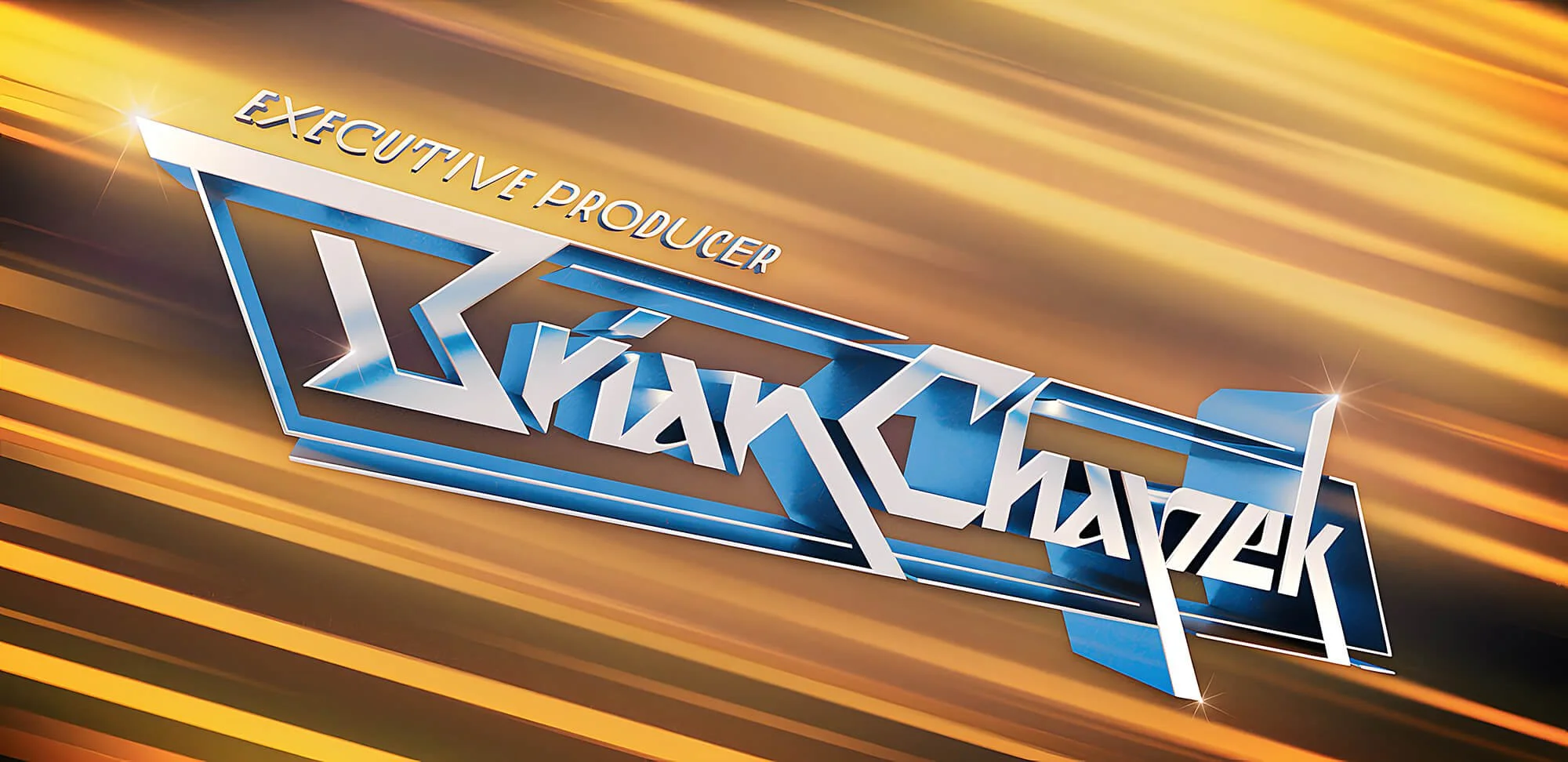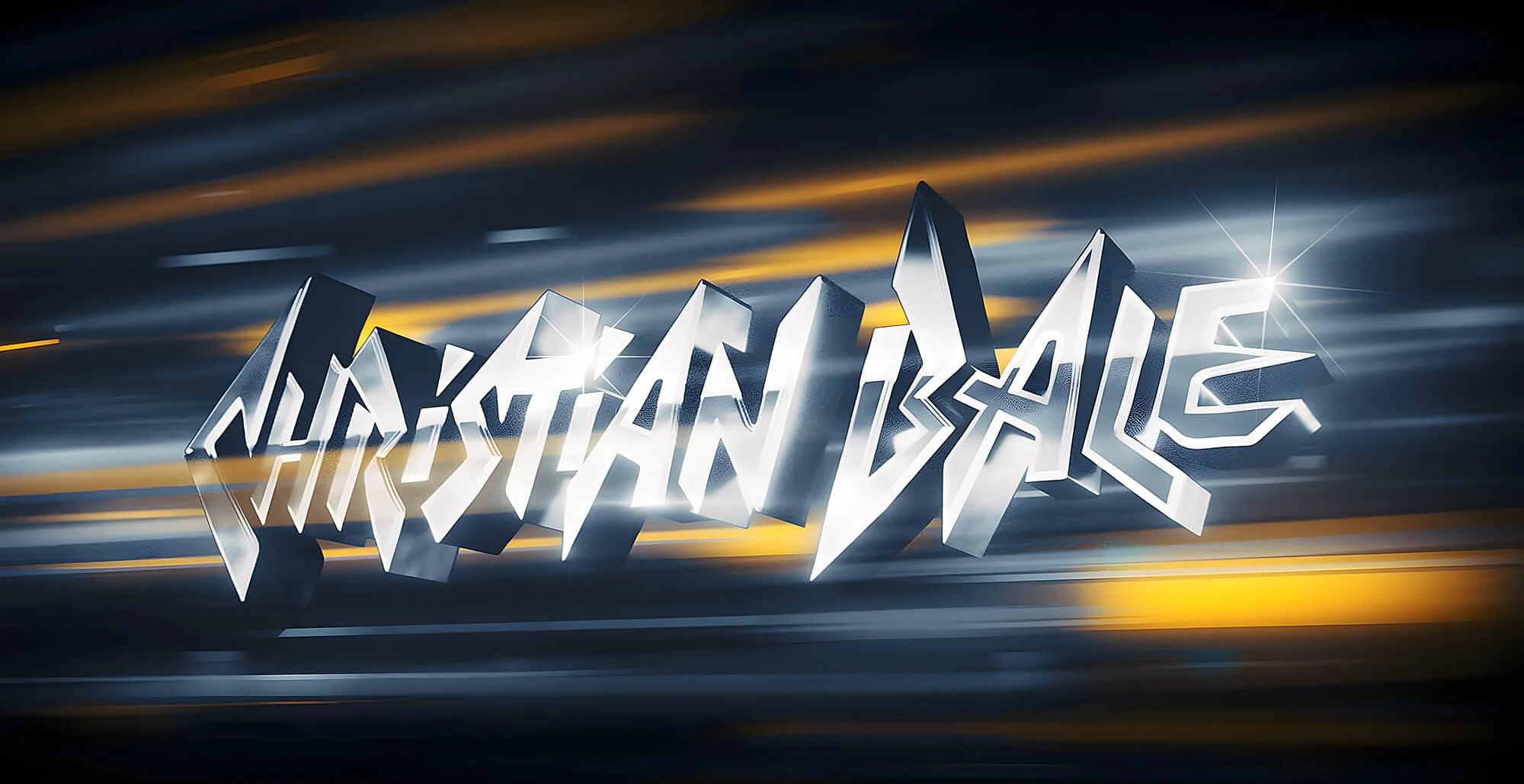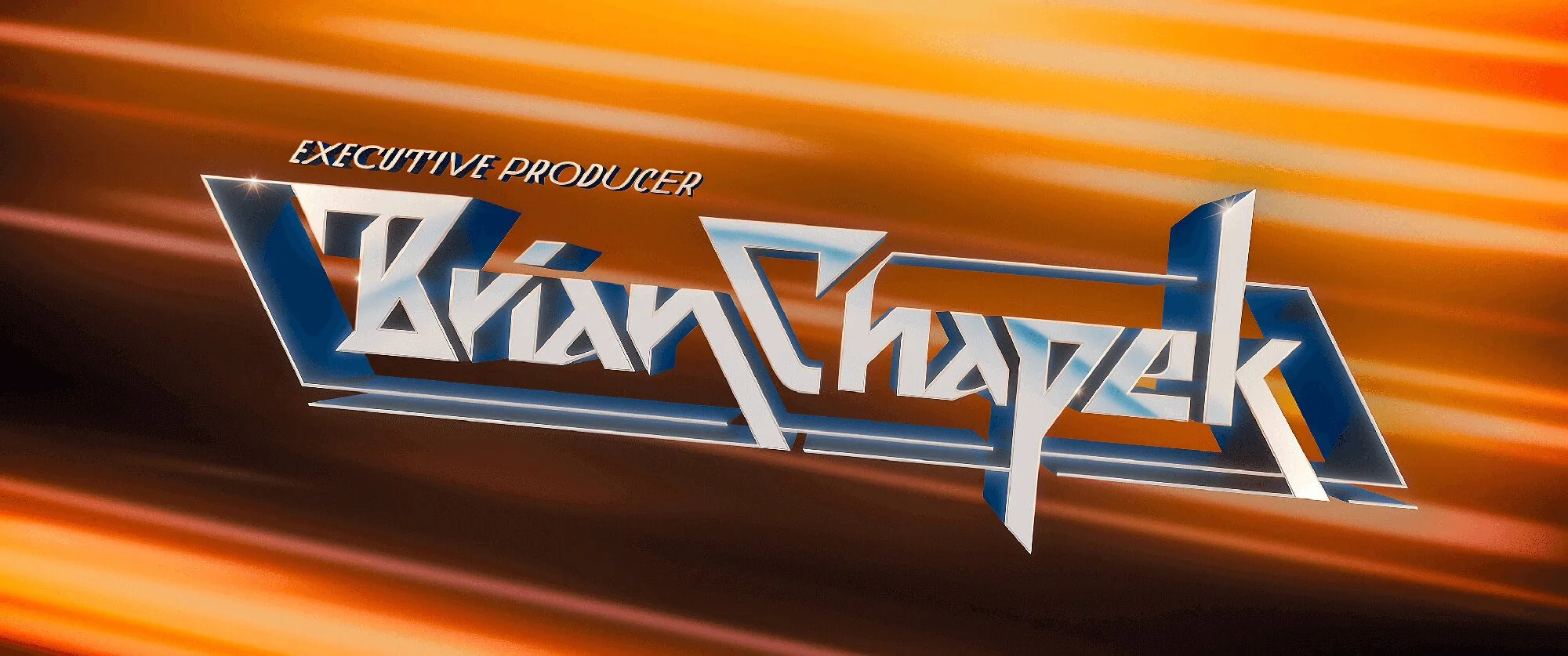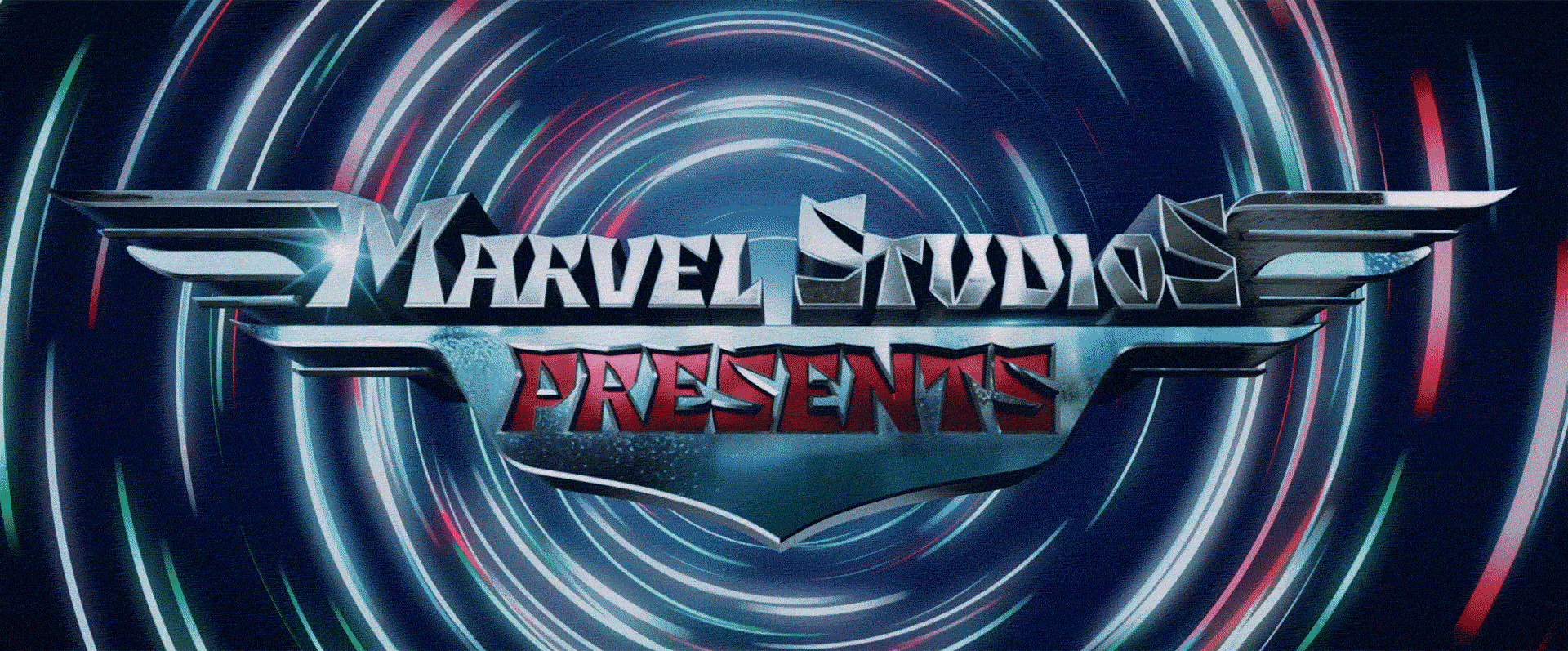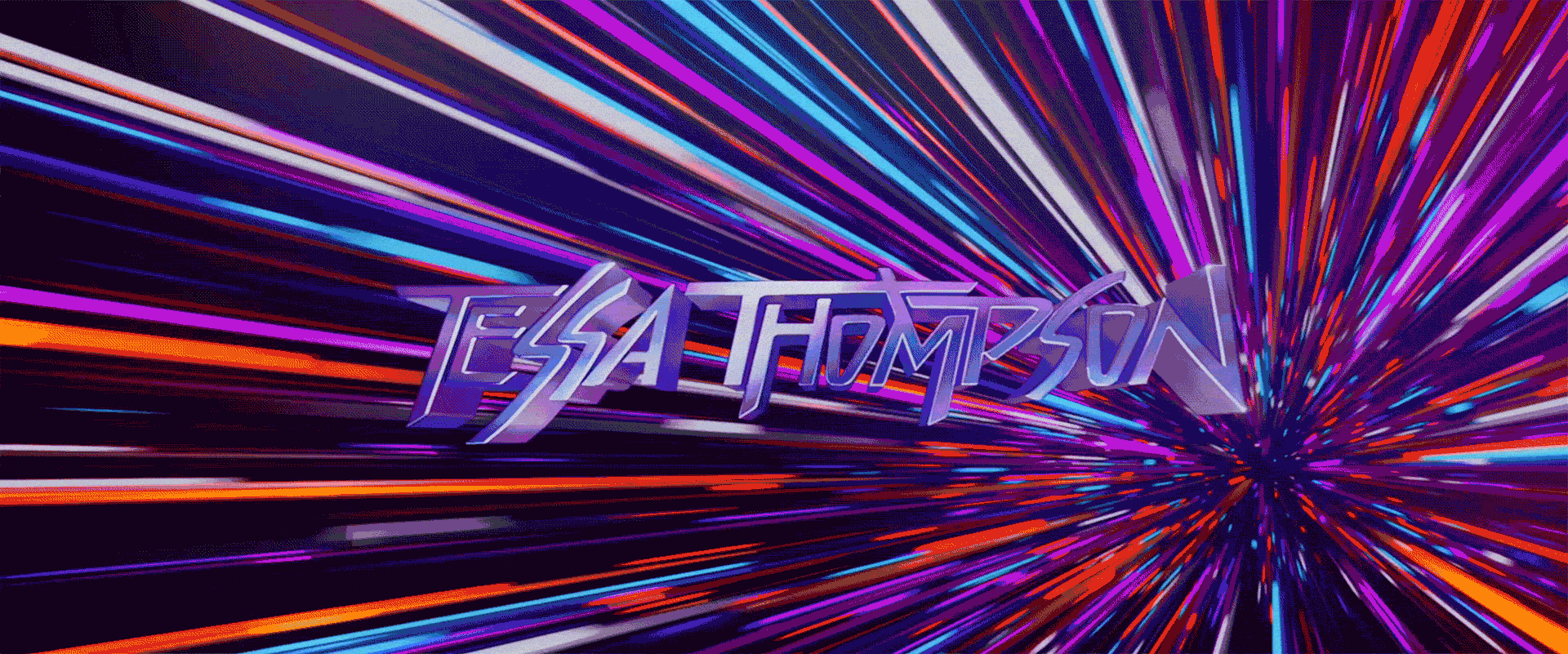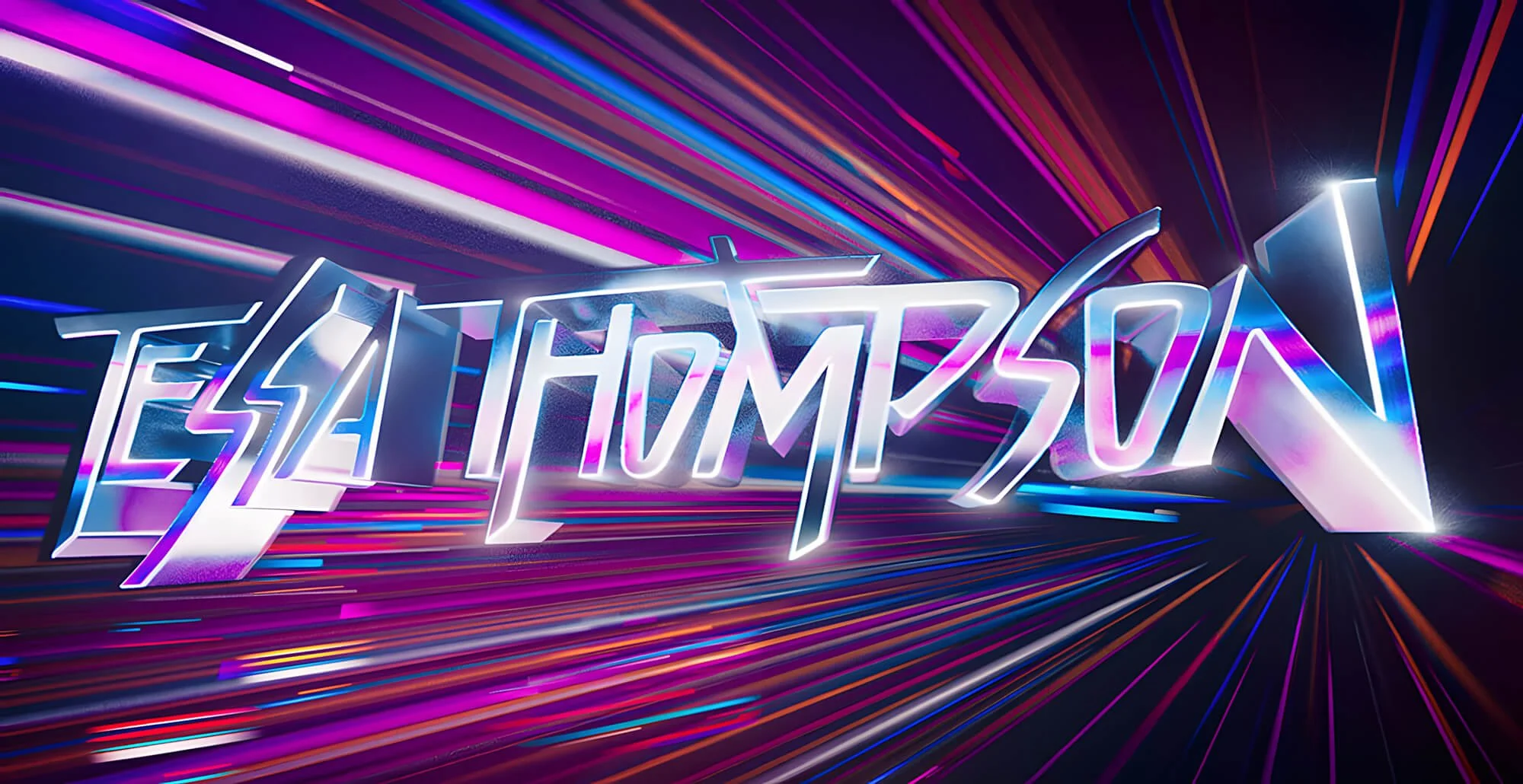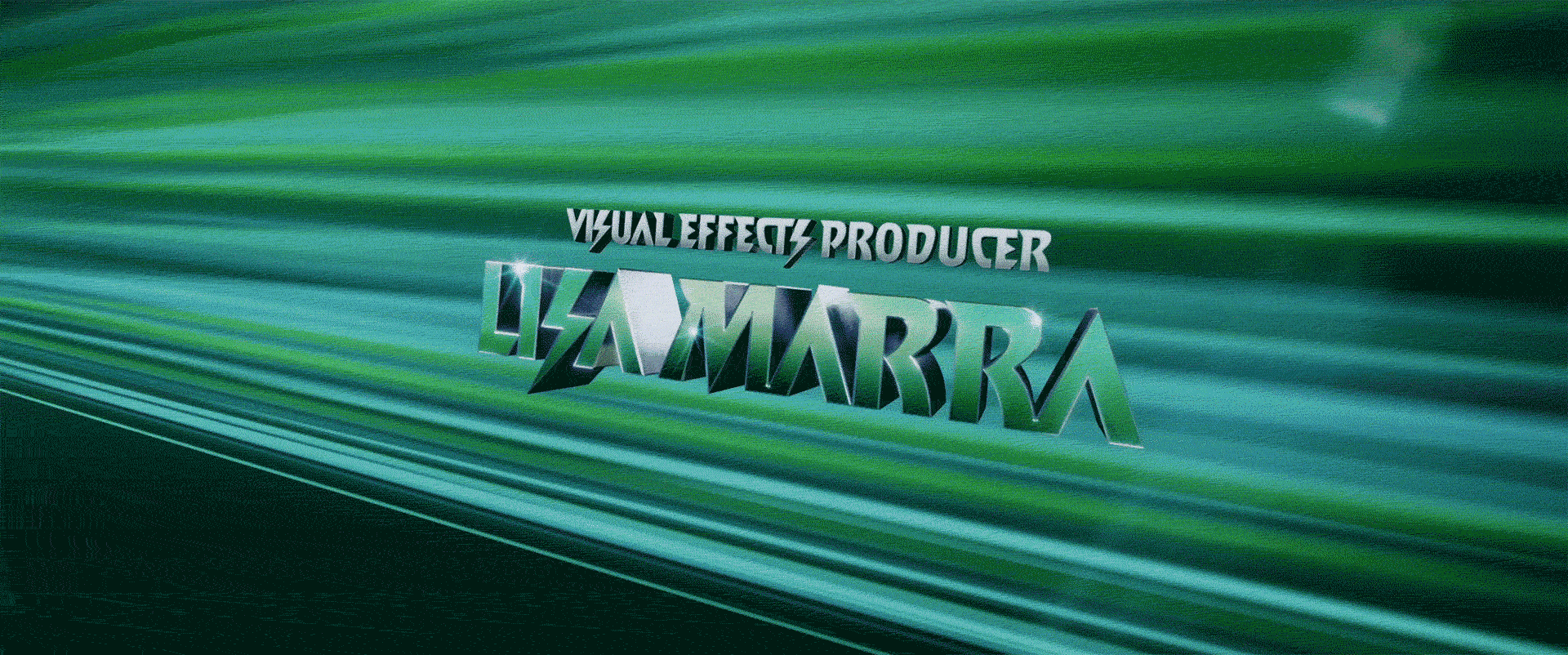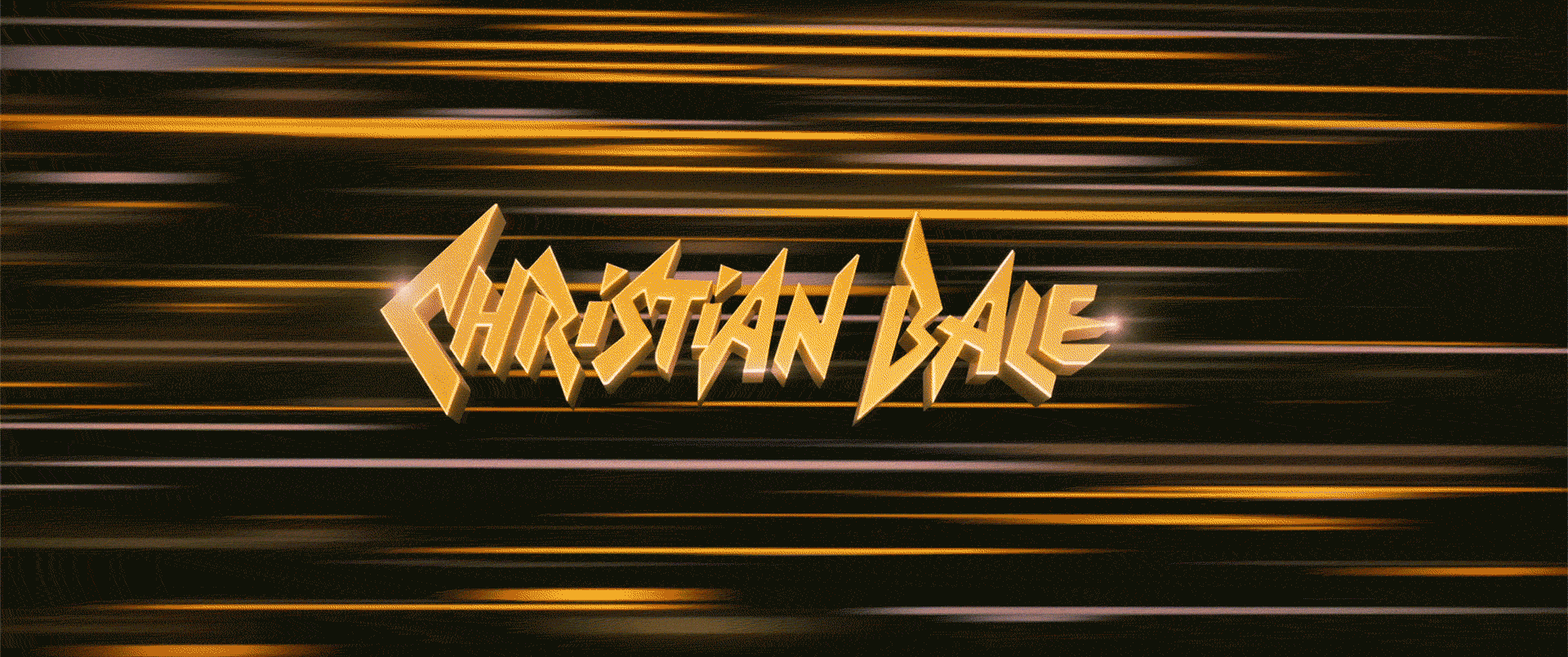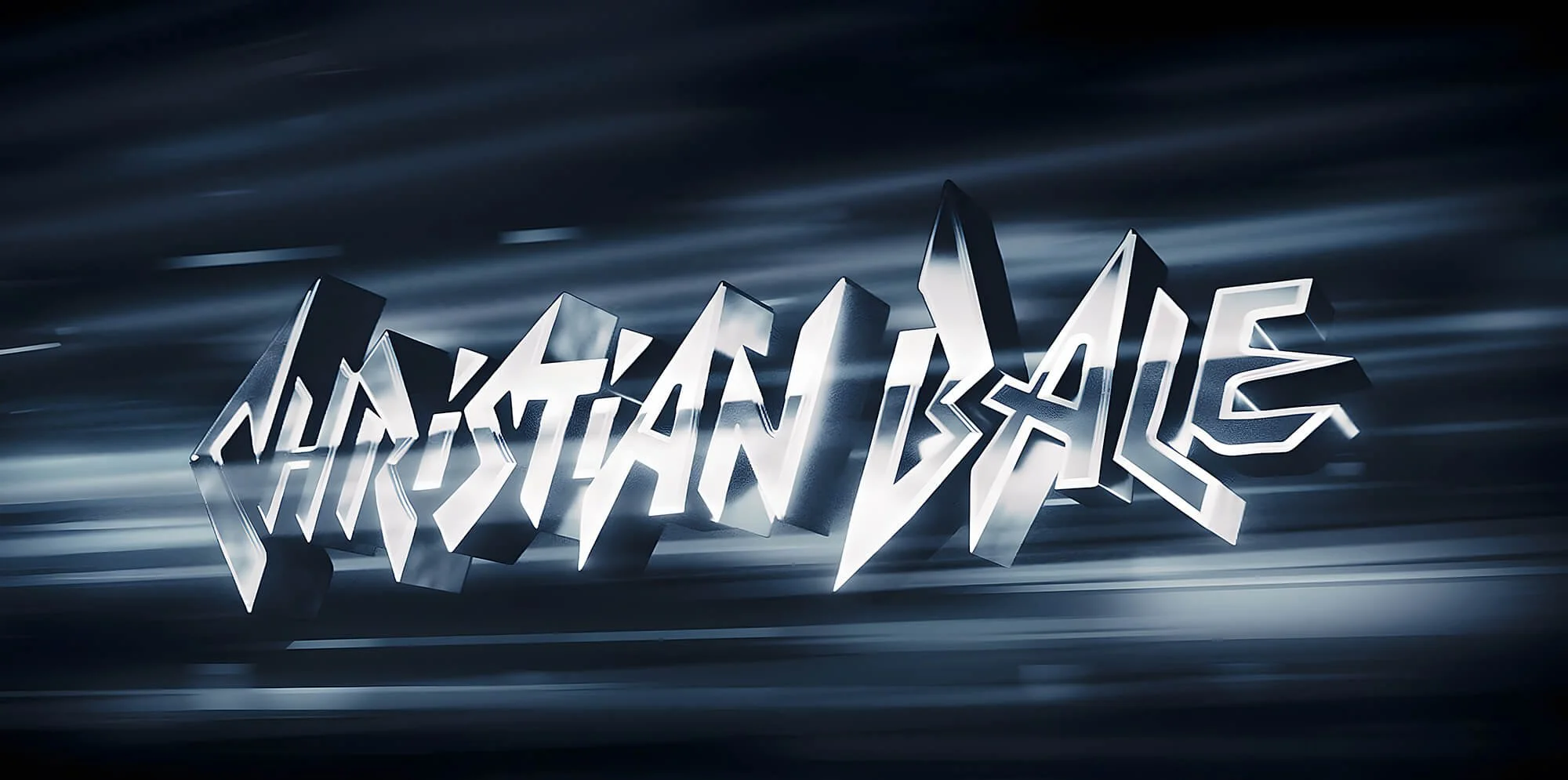
Thor: Love and Thunder
I was lucky to work with Perception for the new Marvel Studios movie.
Six of my letterings were selected for the final title sequence of ’Thor: Love and Thunder'. Every title was inspired by logotypes of classic metal bands.